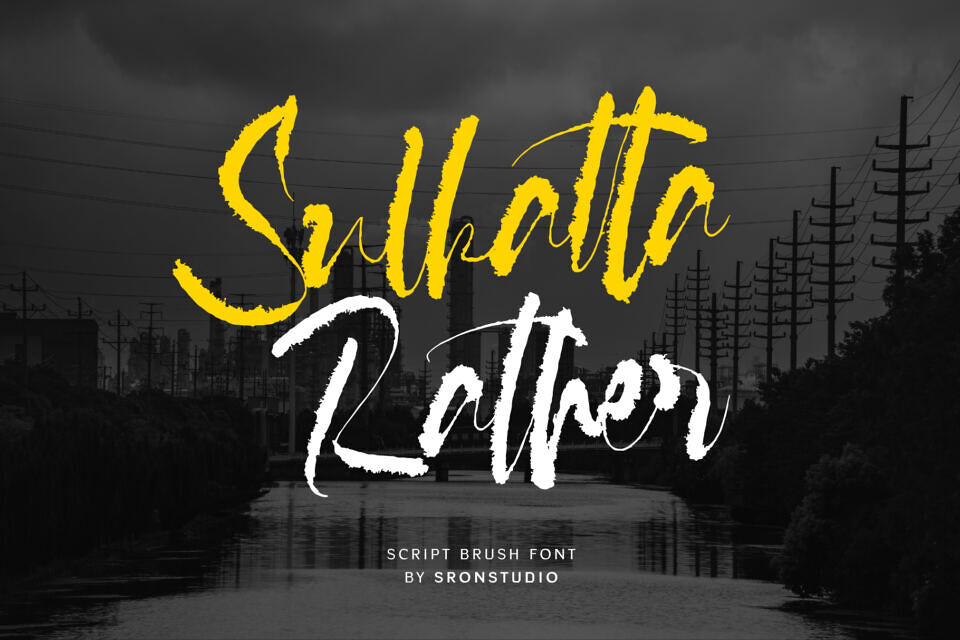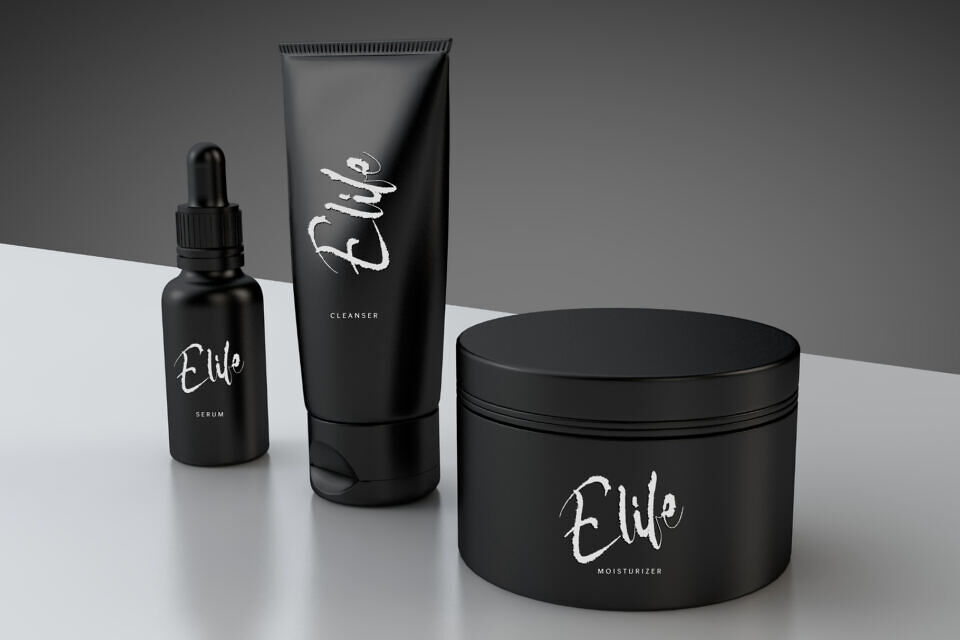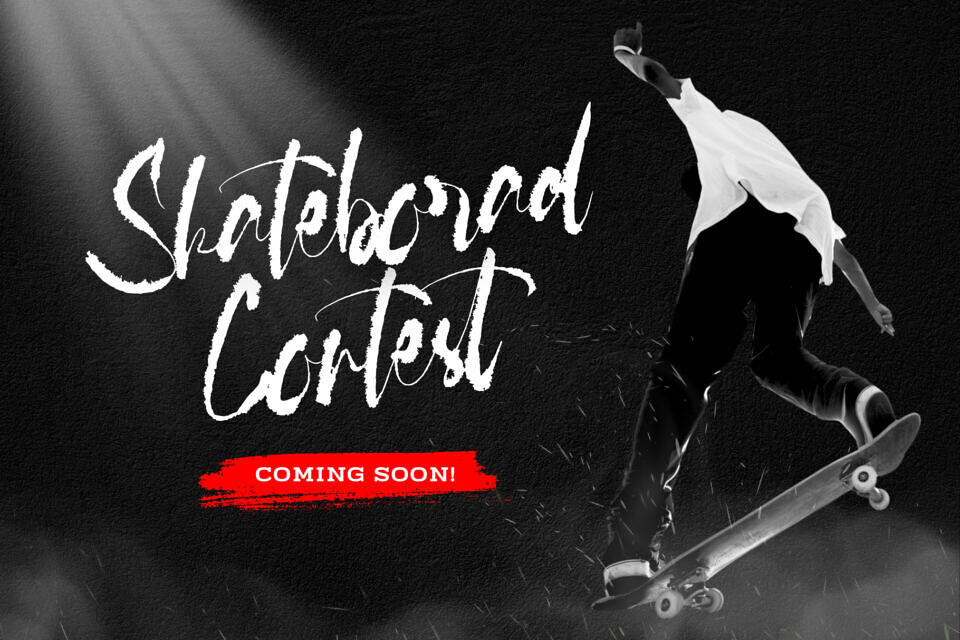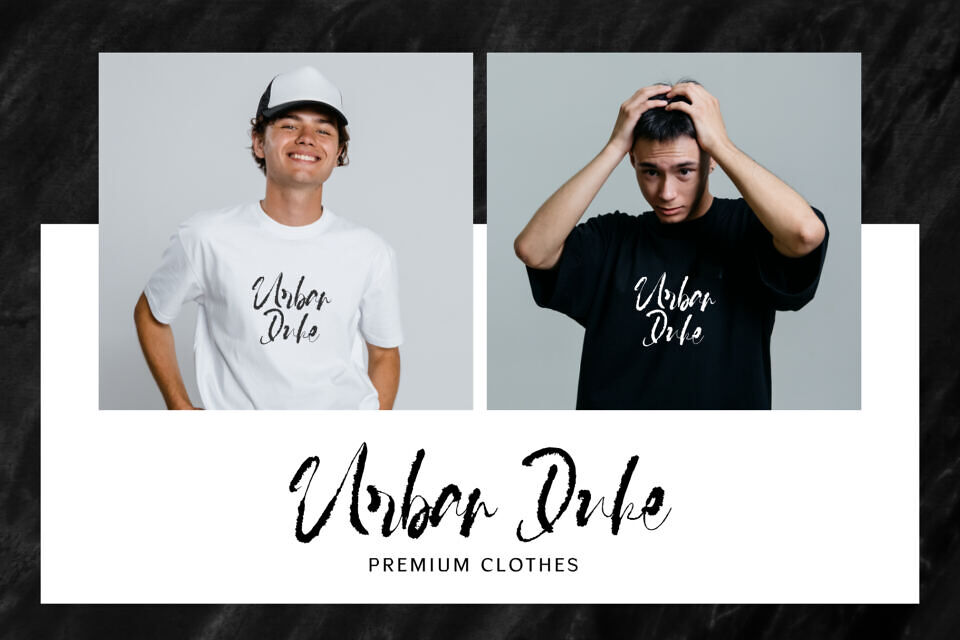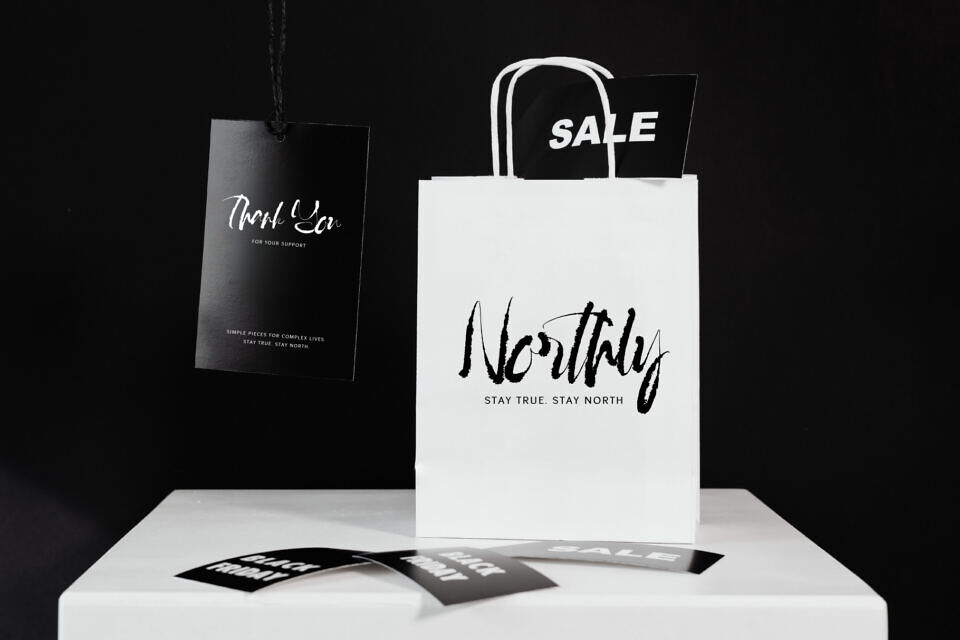
Sulkatta Rather Font
Sulkatta Rather is a rough script brush font filled with bold energy and raw personality. Its textured strokes and handcrafted feel make every letter look dynamic and expressive. Perfect for posters, branding, album covers, apparel, and creative projects that need a strong artistic impact, Sulkatta Rather brings an authentic, rugged charm to your typography.